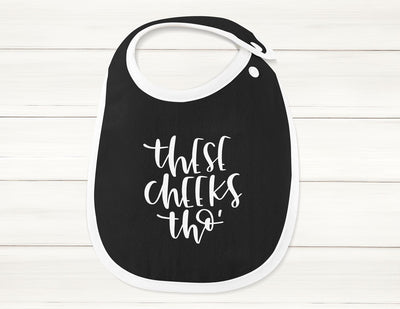
Baby Quote SVG | These Cheeks Tho | Funny Baby SVG
Give something fun with this baby quote SVG file featuring These Cheeks Tho' as a funny baby SVG design for onesies and more. This newborn SVG for a baby shower project is too cute for bottles, bibs and more. Click through for samples.